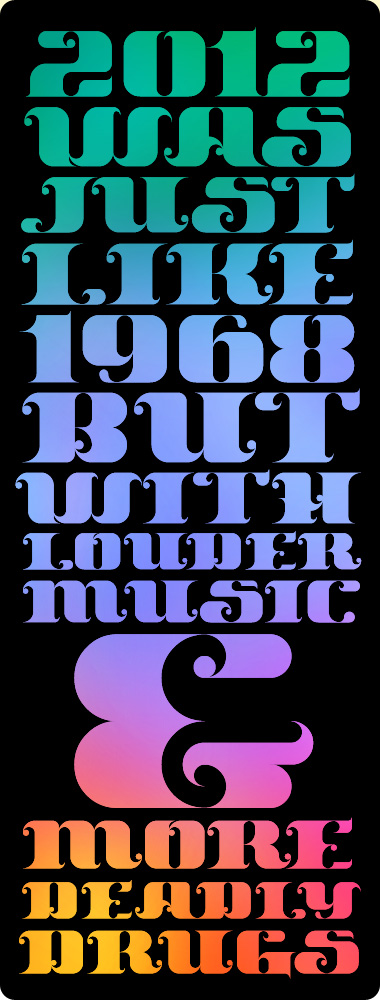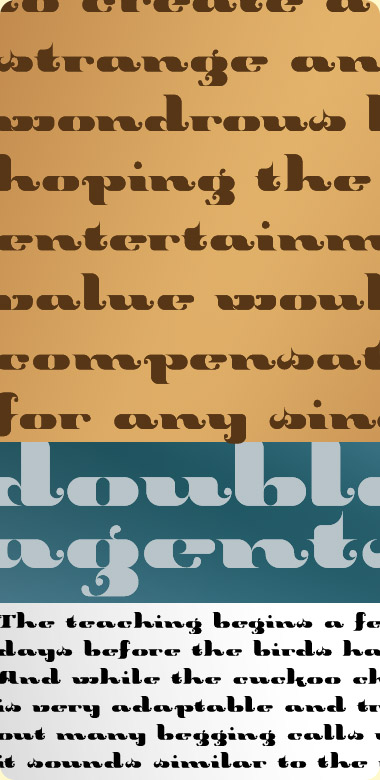
Beautiful!
spirit of hippie!
Very ornamental and playful. Great use of the new bricks. And quite original solutions to some FS limitations. Love the Q
Would you consider dragging the lower serif on the E a little higher or using the swish on the L as a model for it? I think it might do the E good.
Great style! You made new bricks seems very useful. And, the "s" is very beautiful :)
I echo WHAT's qoutes: "spirit of hippie!" yeah
Elegant!
Great decorative design. 10/10
P.S. I lived through the 60's ... and even remember some of it ;-)
Beautiful, it really comes alive in your sample!
Beautiful.
Ah, the capital F spacing issue. I go back and forth about it being on brick past the letter width or right on it. I'd say it would be best if you moved the green letter width line to the right one grid column. It's just a bit too tight right now.
All in all, 10/10.
@meek: Thank you for the TP! Looking back at my other structs, I realize I had been wanting the new shark's fin brick for a long time, but didn't know it!
@laynecom: I see what you mean with the bottom stroke on E. The dilemma: Keeping the proportion as optically "extended" as possible, and not "connecting" with the crossbar. I tried using the L stroke, but it connected and made it feel narrower. I tried the bottom of C on E, L, J, but again it made them feel narrower...but I go back and forth on it. I'll post these later in case you're still interested.
@demonics: width on F fixed!
Looking back, one more nitpick:
The B seems too close to the C. Thanks!
wonderful...